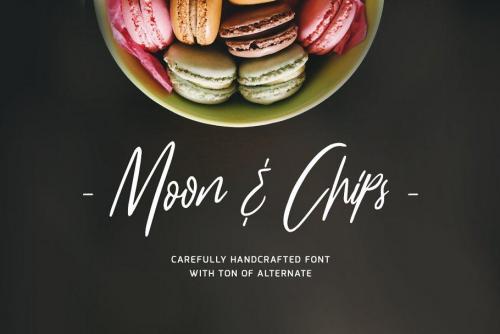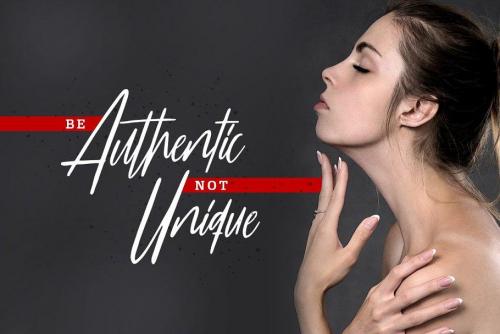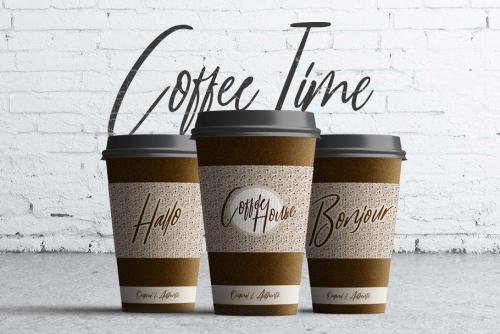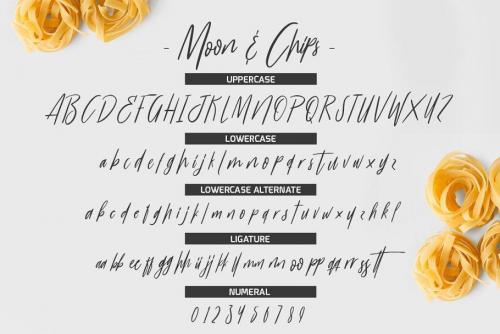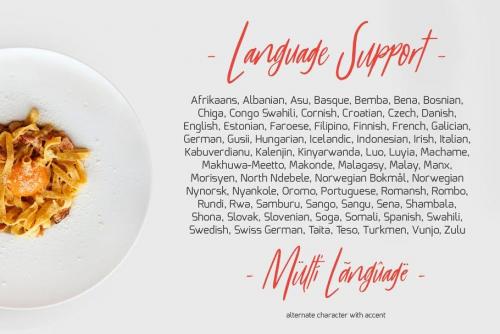
Let us to introduce our new font Moon & Chips a new hand lettered typeface. Created for everyone love making something beautiful, and special who loved to make a chips and other snack. This font is very personality and suitable for your food project like restaurant menu, bakery signage, etc. With ton of alternate you can use them for every project and still look elegant.